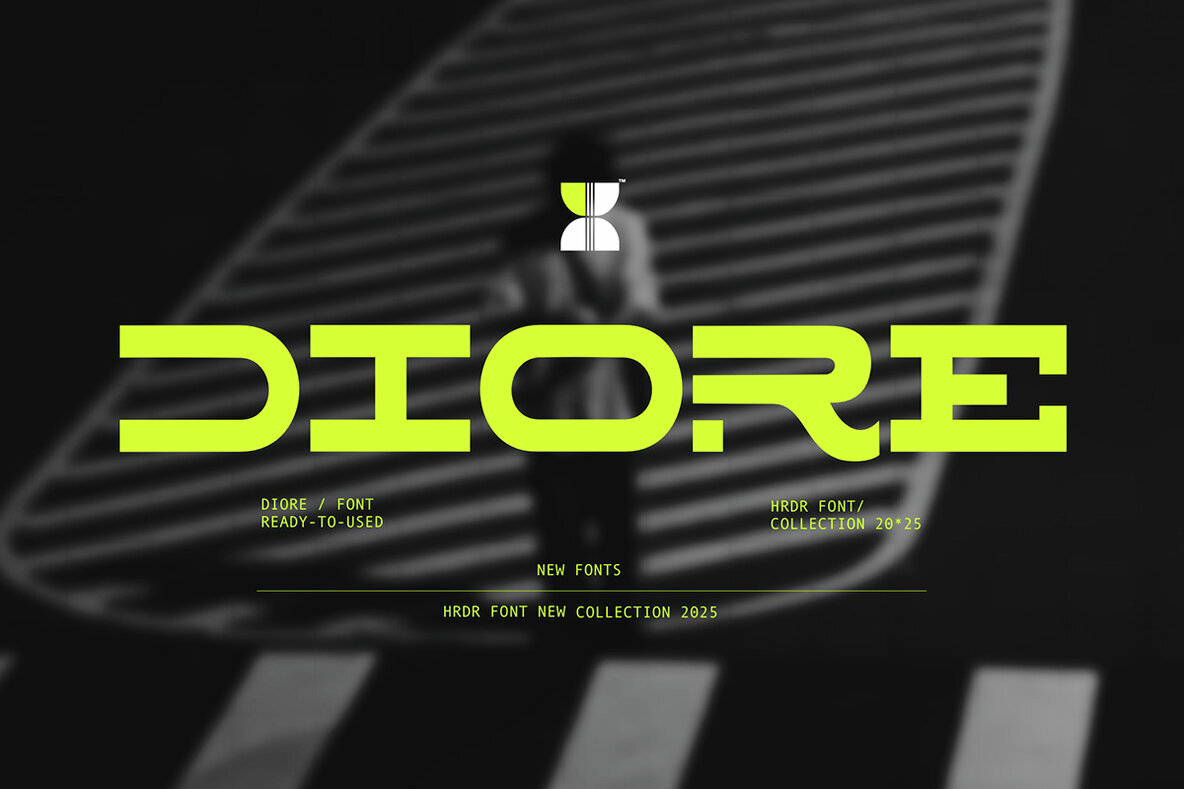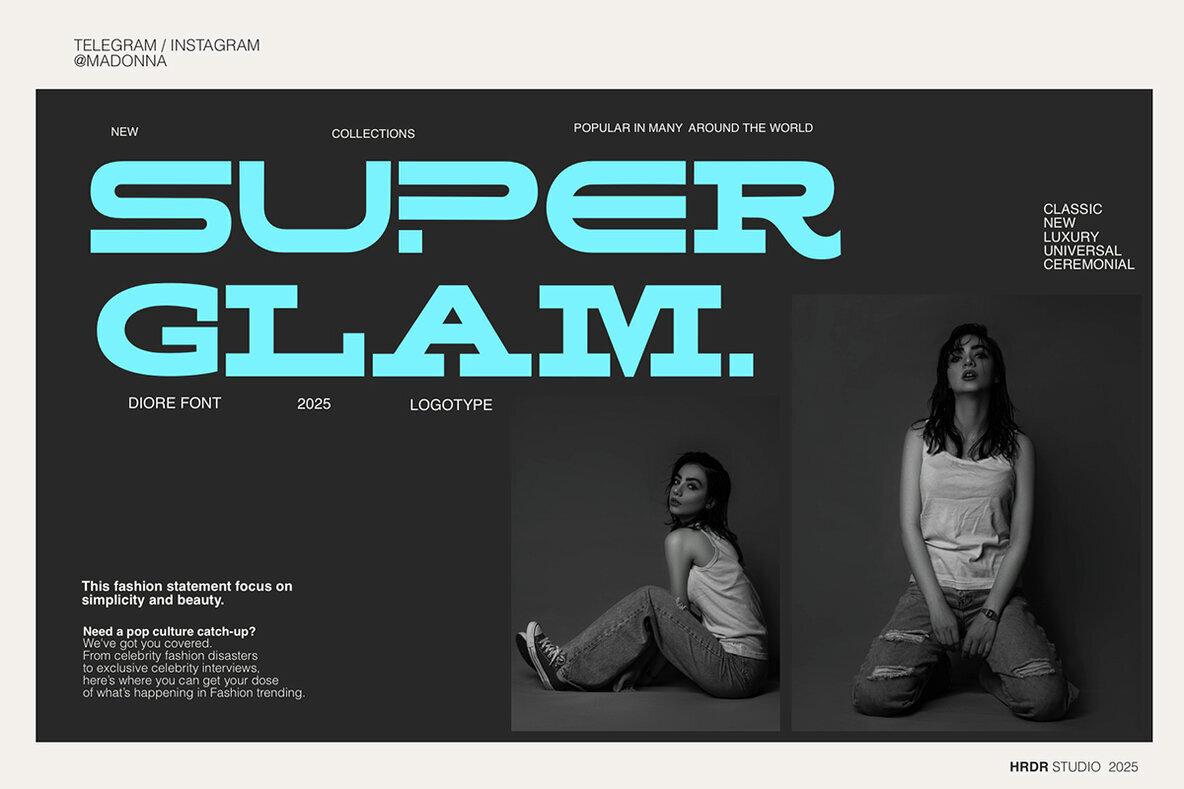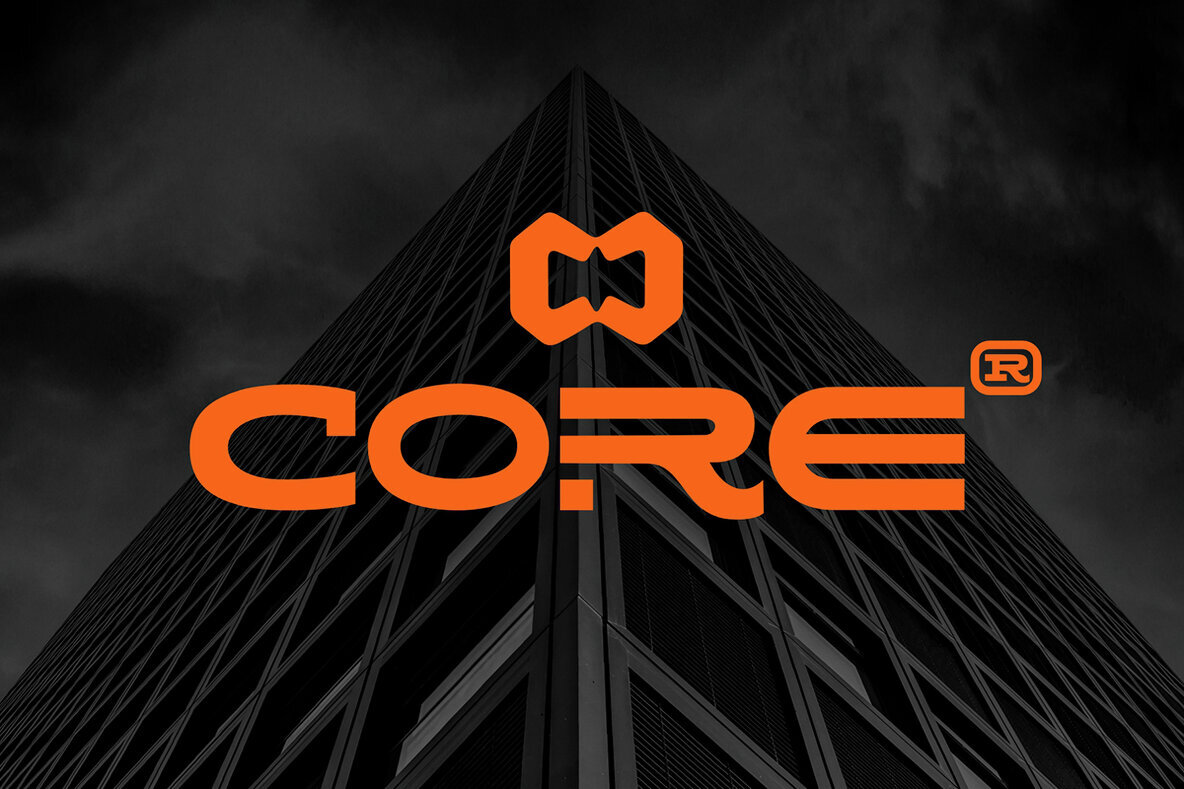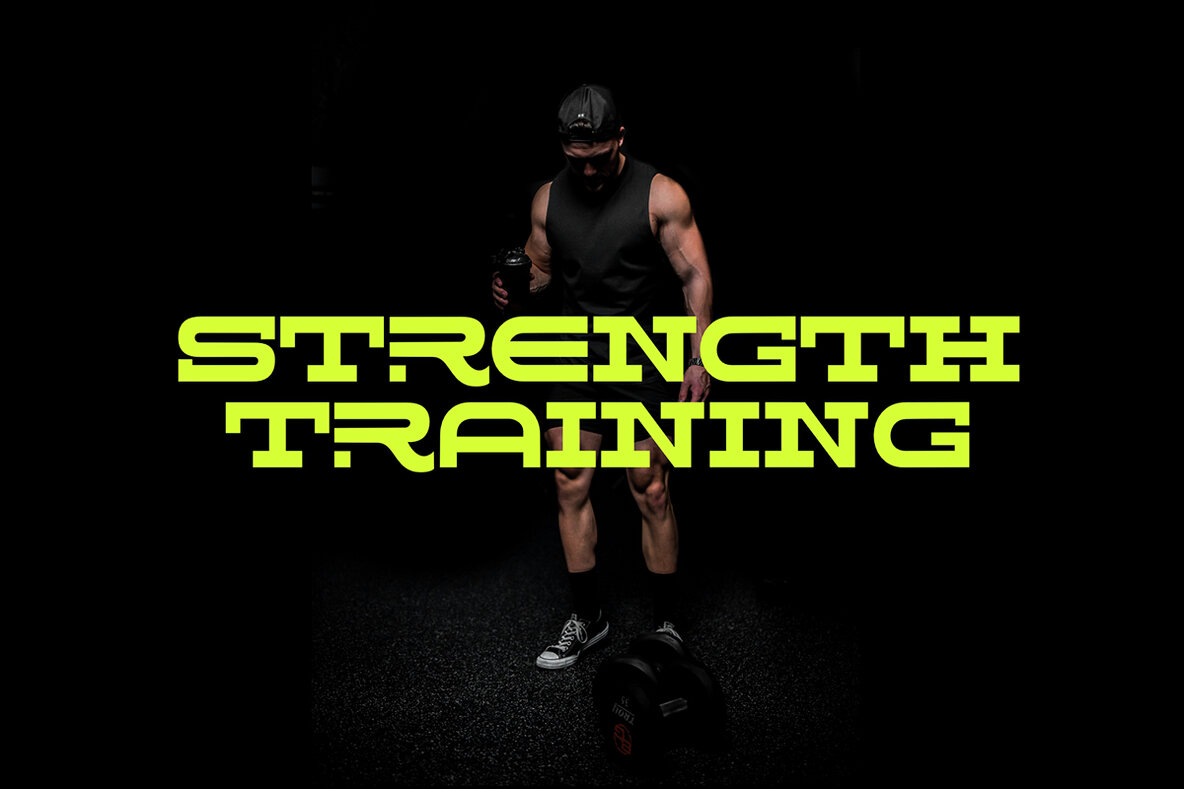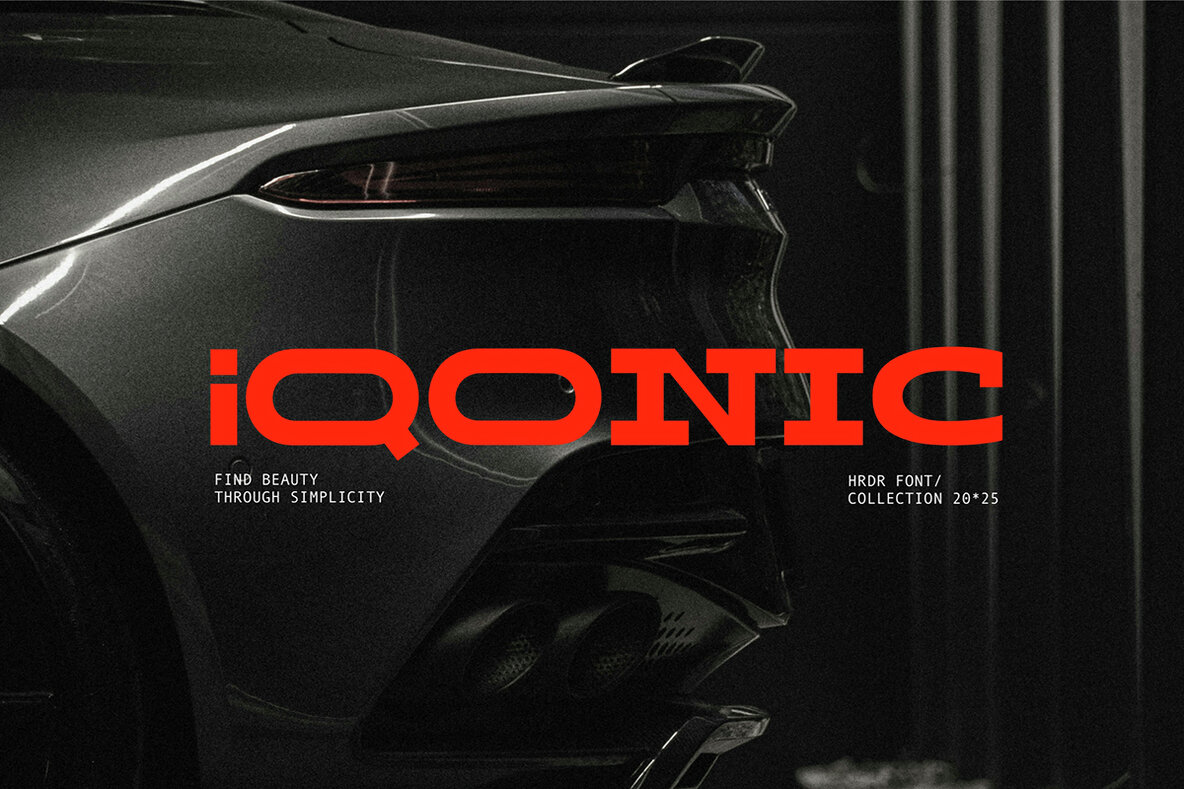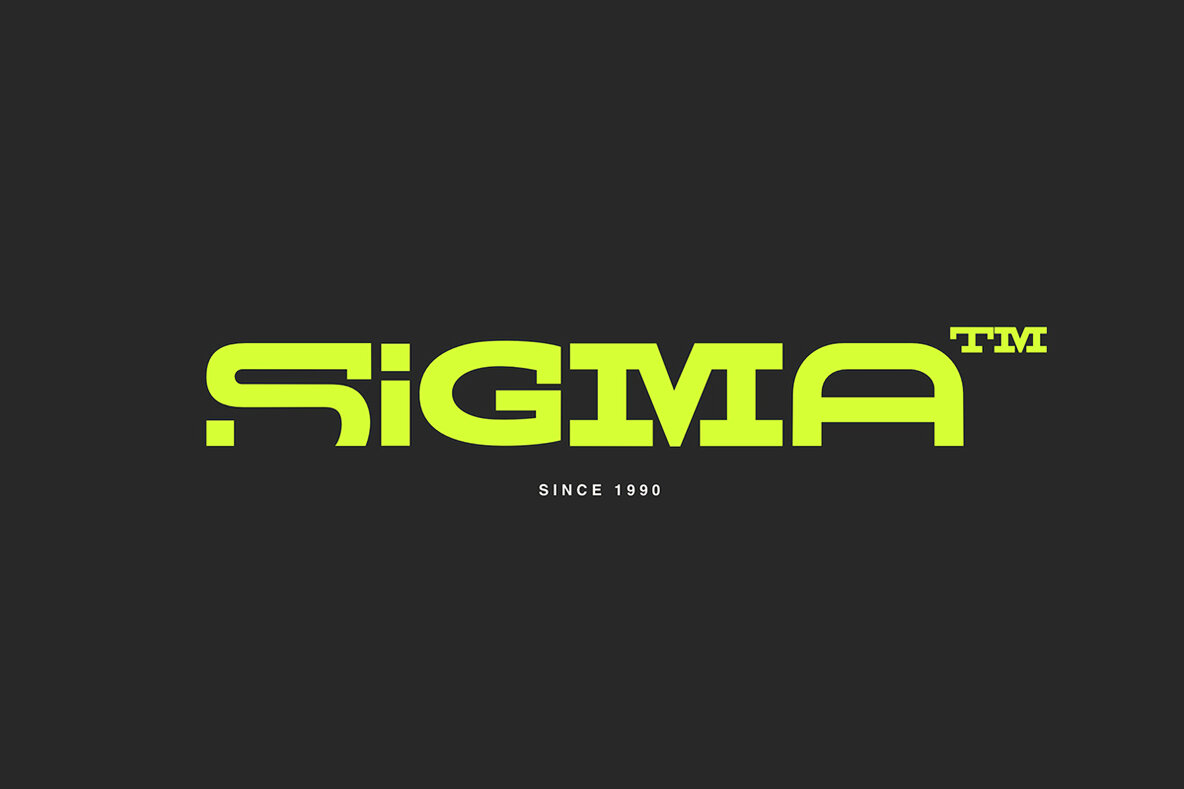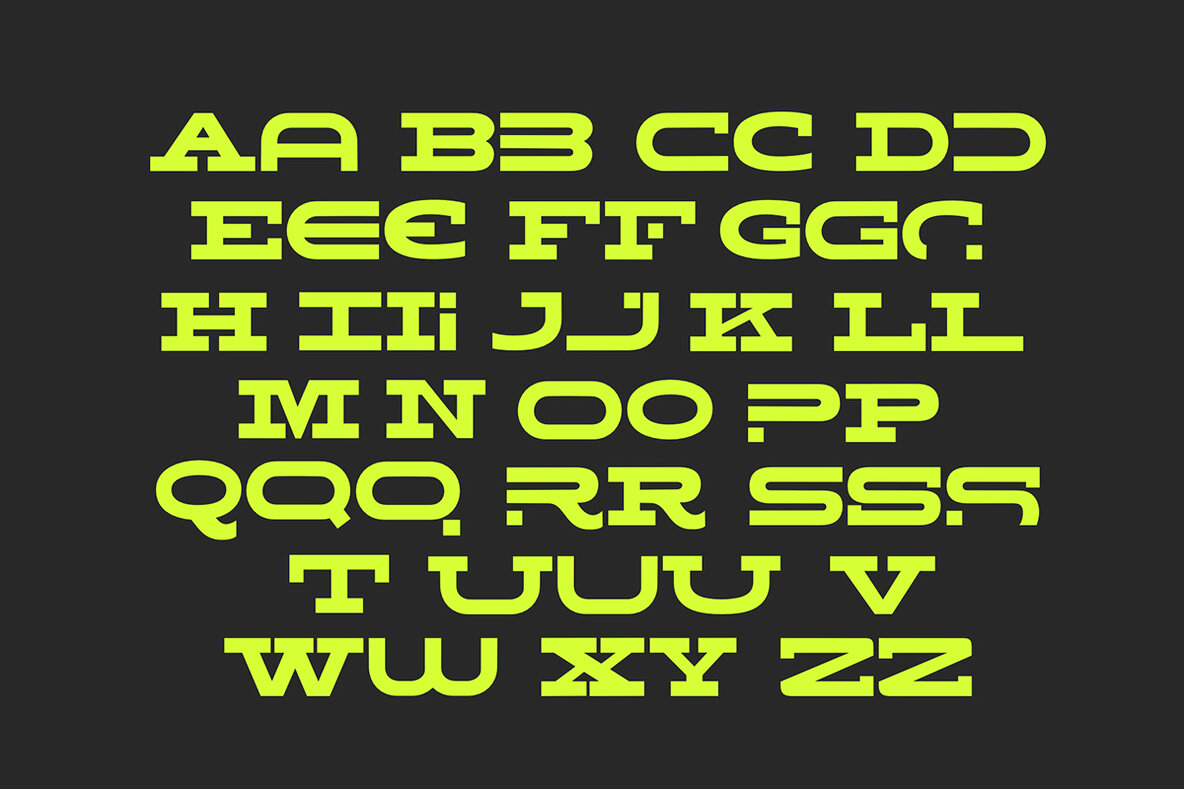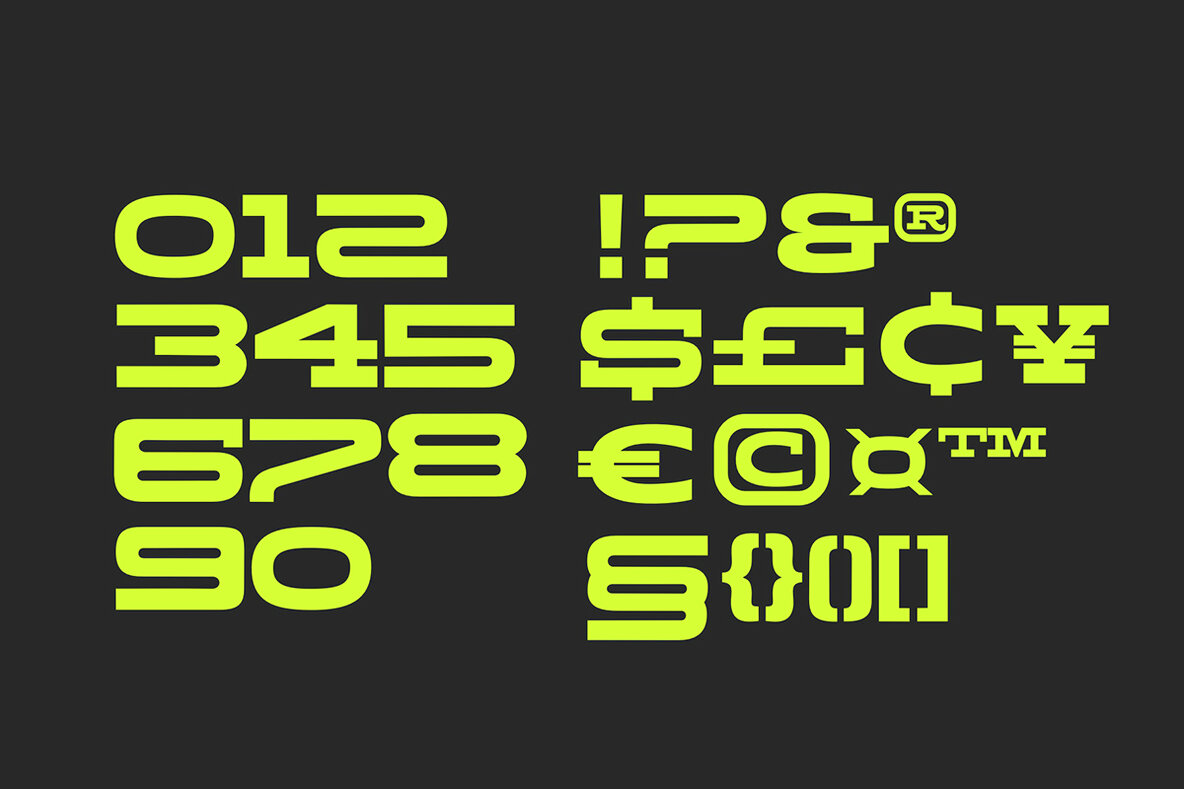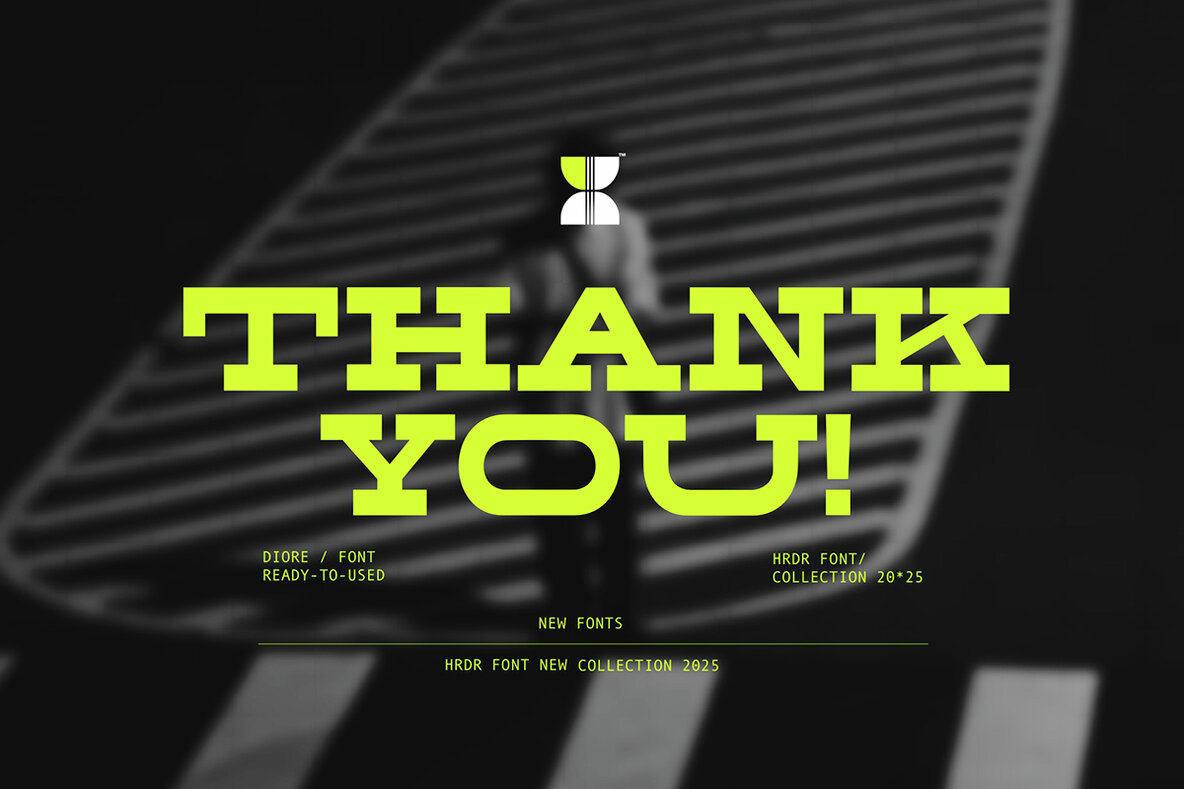
Diore Font
Diore Regular
Diore stands out as a modern serif display font with a refined and elegant character. Designed for versatility, Diore suits both impactful headlines and detailed body text, making it a reliable choice for a variety of design needs. Whether it’s branding, advertising, packaging, magazines, websites, or logo designs, this typeface brings a sleek, contemporary touch to every project. Each letter features carefully balanced proportions and crisp serifs, ensuring strong readability and visual interest. Diore’s classic details combined with a modern twist make it an excellent option for projects that require sophistication without sacrificing clarity.Diore Serif Display Font